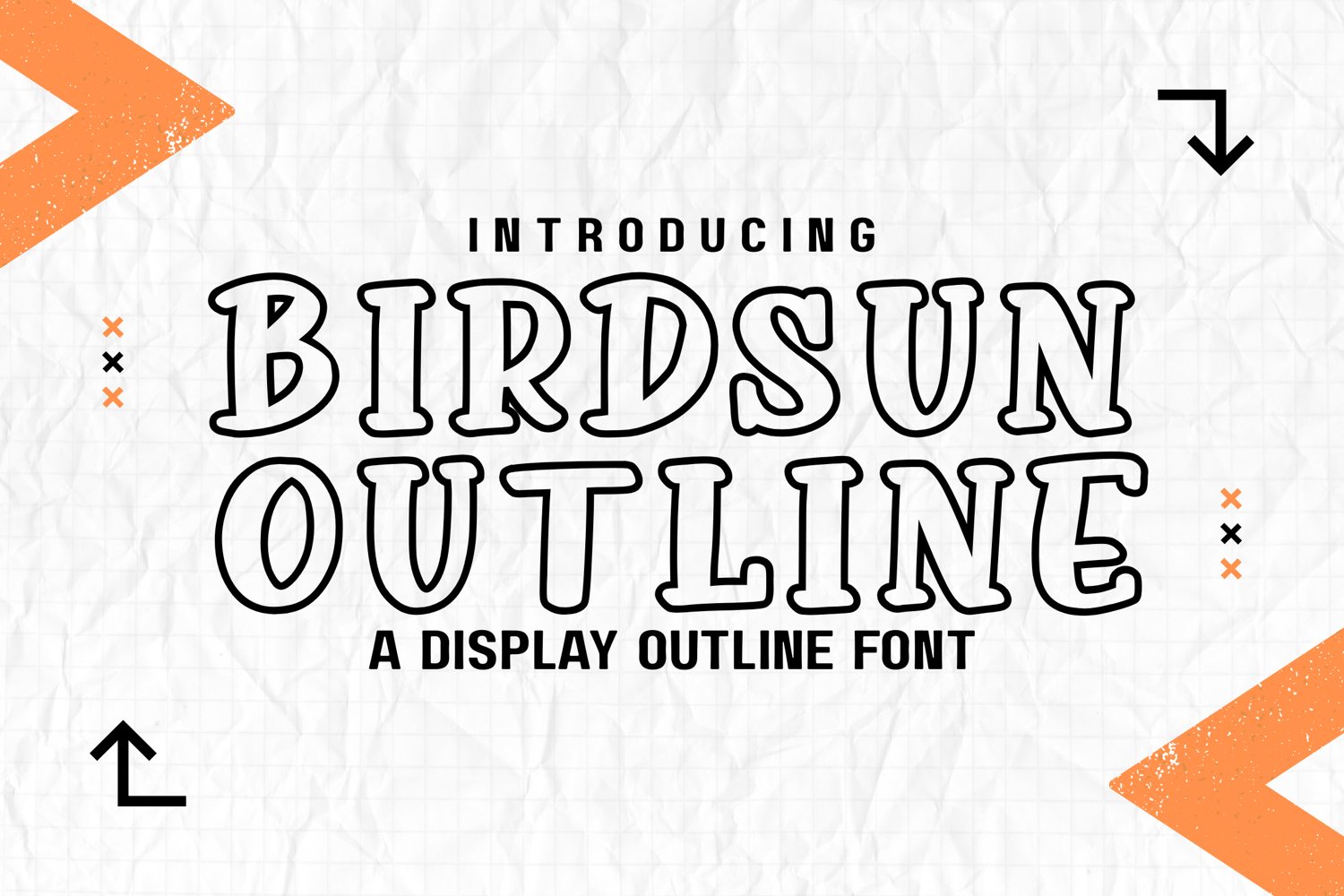
Birdsun Outline - Whimsical & Playful Handwritten Font
Birdsun Outline
Add a charming touch to your creative projects with Birdsun Outline, a fun and lighthearted handwritten font with a unique outlined style. This font brings a modern doodle feel that’s perfect for playful branding, children’s designs, creative packaging, and cheerful quotes.
With its whimsical curves and outlined structure, Birdsun Outline stands out beautifully on both digital and printed works. Pair it with a solid script or use it solo for maximum personality!
🎨 Perfect For:
• Children’s book titles & illustrations
• Logo design & playful branding
• DIY crafts & printable quotes
• YouTube covers, stickers, and T-shirt designs
• Invitations, journals, and social media posts